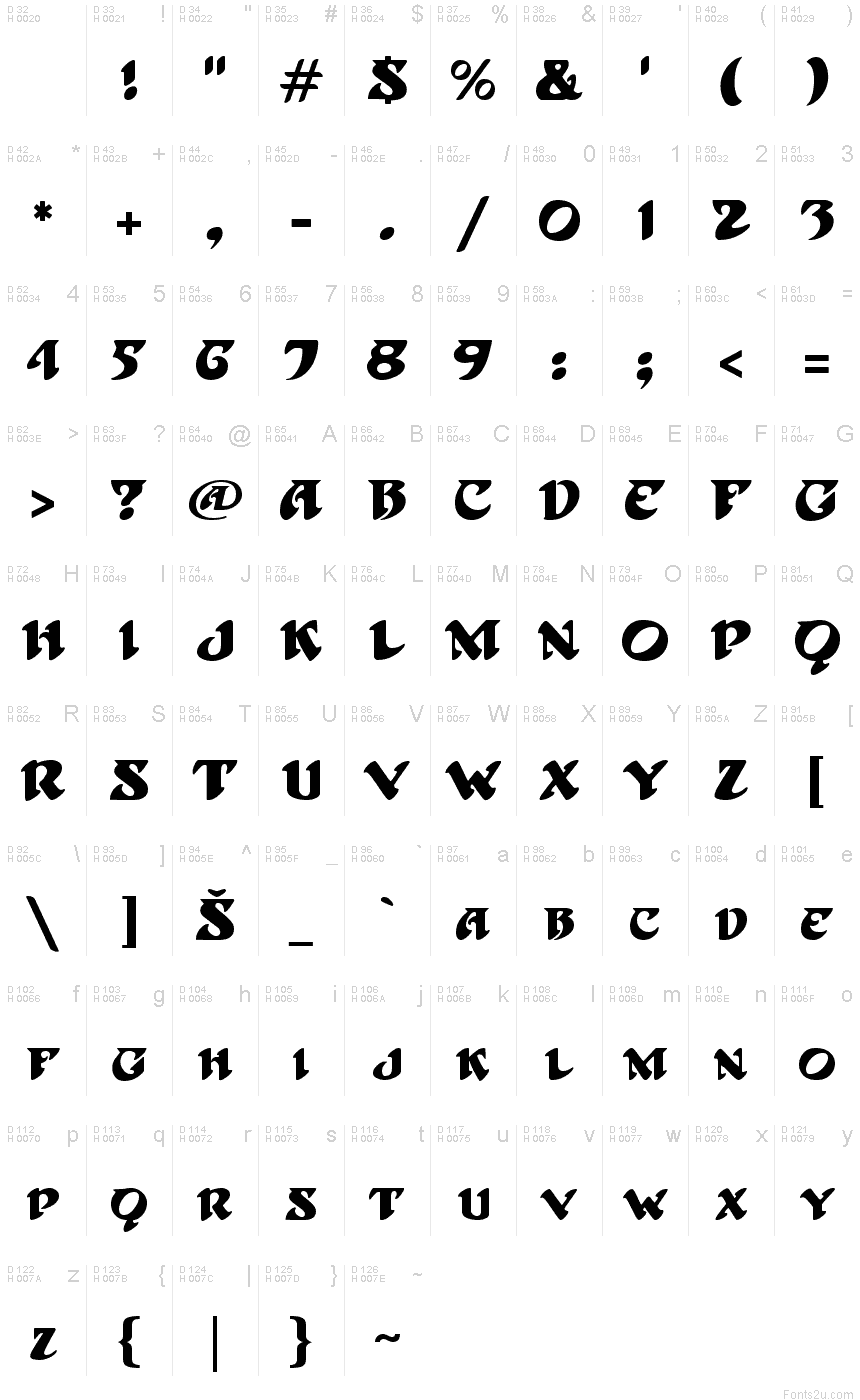
Hoffmann Regular
Hoffmann font by Richard William Mueller is a free retro display typeface that looks like a playful mash‑up of blackletter drama and chunky sign-painter curves. The letters feel inky and substantial, with thick, sculpted strokes and soft, rounded counters that keep it friendly instead of gothic. Angled cuts and tight joins give Hoffmann a hand-carved, poster-like energy that jumps off the page at larger sizes.
Using Hoffmann, your titles snap into focus on gig posters, beer labels, vintage-themed branding, book covers, menus, and festival signage. This free font works beautifully when you keep it for headlines and pair it with a clean, understated sans serif for body copy. Give Hoffmann plenty of breathing room and a bold color contrast, and it rewards you with loud, nostalgic personality that’s impossible to ignore.